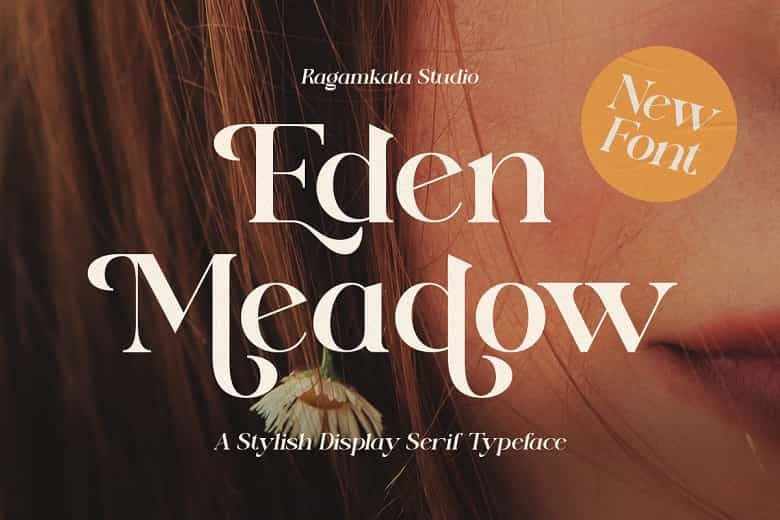
Eden Meadow is quite a special serif font and can be used in a range of styles. It is perfect for the use in pretty and laid back, bohemian styles and it is also perfect for more elegant themes! The following are the many stylistic alternatives that can be applied to the use of this font: These letters are included in the font and are readily available in programs such as a Photoshop or an illustrator.